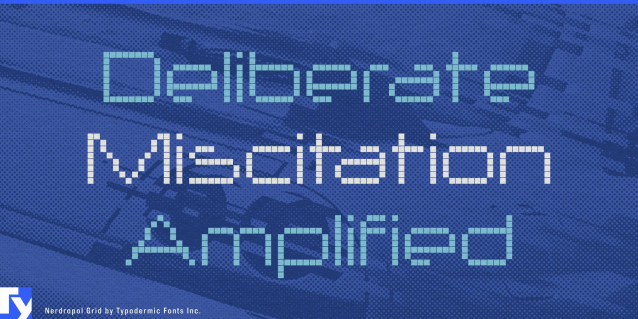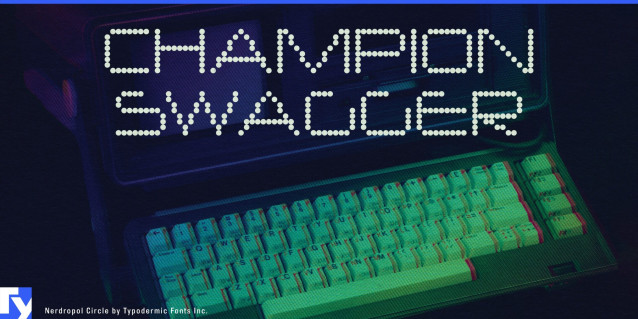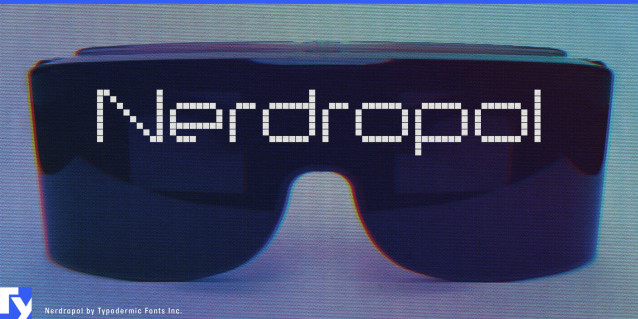
Nerdropol Lattice Font
Nerdropol Lattice Font is where pixel nostalgia meets precision typography. Built on a true pixel grid, every curve, corner, and connection is tuned for whole-increment spacing, giving your layouts that unmistakable bitmap authenticity. Its letterforms echo the arcade era—crisp, monoline strokes and modular geometry—but with just enough refinement to feel at home in contemporary design.
Available in solid, grid, mesh, and screen styles, Nerdropol adapts to your project’s mood. Go for a pure, razor-edged bitmap look; dial in a textured mesh for a hint of retro screen glow; or push into glitchy, color-layered effects that feel ripped from a dream of the digital frontier. Its versatility stretches well beyond gaming. Picture it emblazoned across e-sports jerseys, lending a retro-futurist voice to a synthwave album cover, or bringing pixel-perfect order to an indie game UI. With broad multilingual Latin coverage, Nerdropol is as ready for a global audience as it is for a high-score screen.
This is not a font pretending to be pixels; it’s designed with the discipline of the 8-bit era and the polish of modern display typography. Whether your goal is to spark arcade memories or to build something entirely new from the raw material of retro tech, Nerdropol delivers the grid-perfect backbone to make it happen.